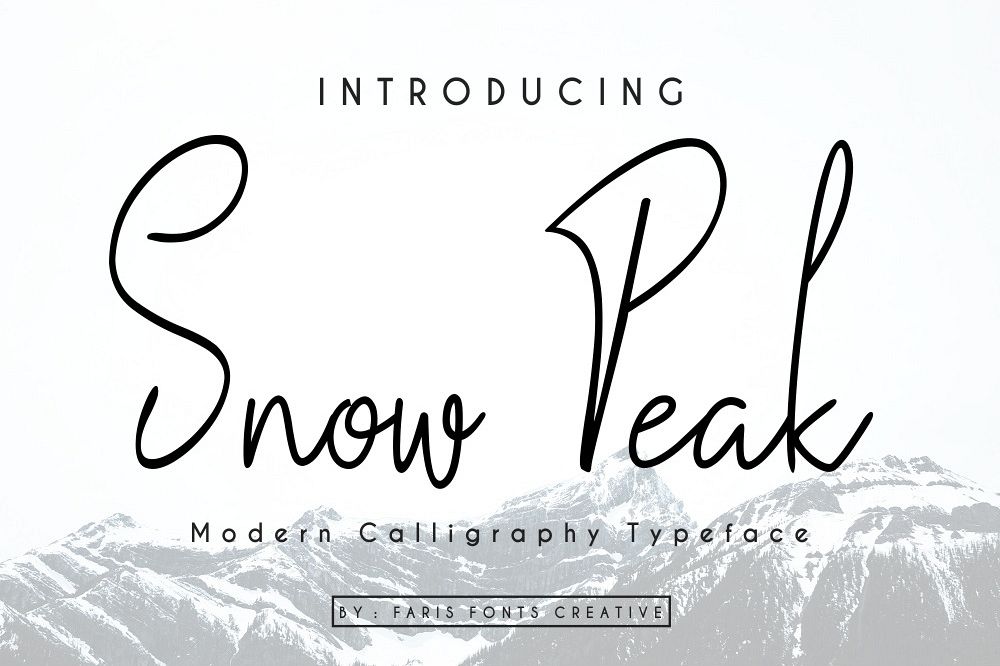
Snow Peak
Snow Peak is a hand written font that has lovely
style and unic style it works perfectly in all sort of photo, design projects
like fashion, wedding,  branding, and more.
Also You can use Snow Peak for logotype, headline, instagram post, greeting